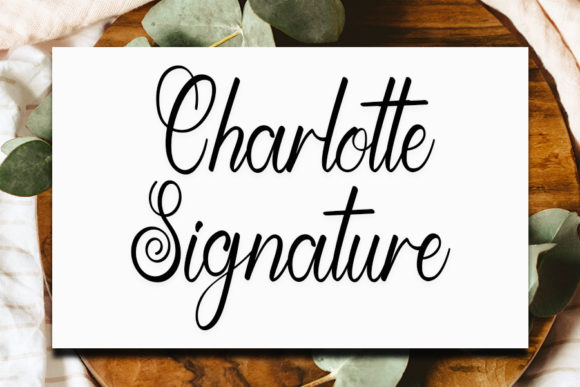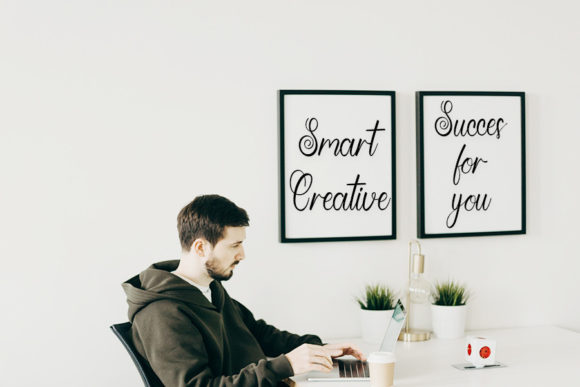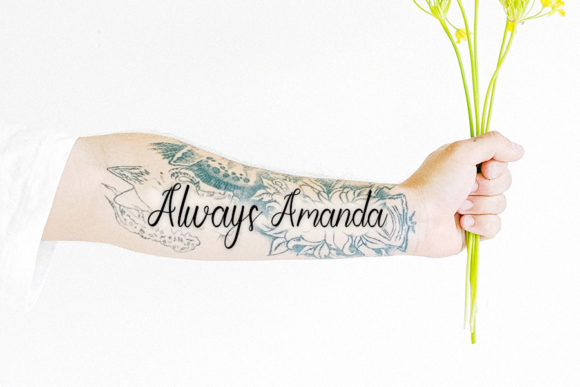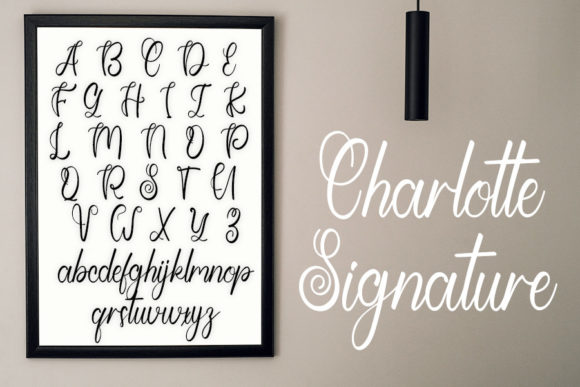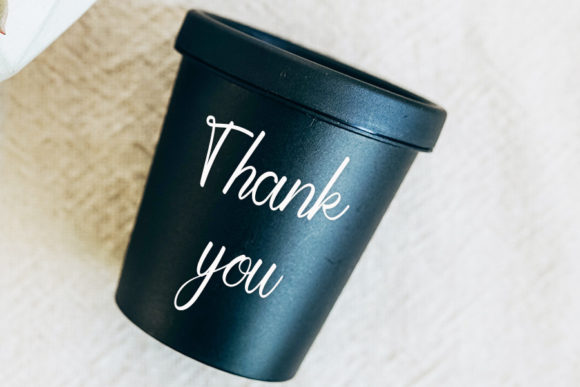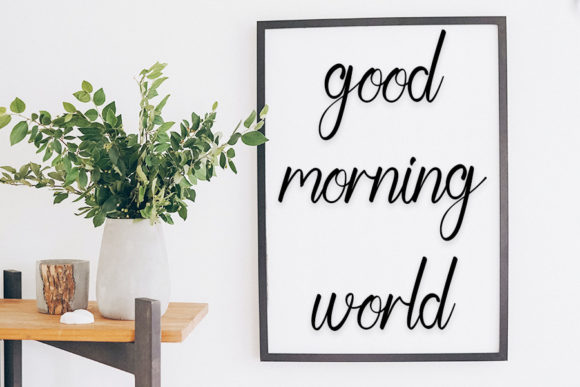
Charlotte Signature Font
About Charlotte Signature Font
Charlotte Signature is a friendly handwritten font meticulously crafted to become a true favorite. With its classy calligraphic influences, this font maintains a timeless elegance while embracing a contemporary and fresh feel.
The friendly demeanor of Charlotte Signature makes it a versatile choice for a variety of design applications. Whether used for branding, product packaging, invitations, or any project that demands a touch of personal and approachable style, this font delivers a warm and inviting aesthetic.
The careful design of Charlotte Signature ensures that it seamlessly balances classic calligraphic elements with a modern and fresh look. Each character is thoughtfully created to embody both sophistication and a sense of current design trends.
For branding projects, Charlotte Signature becomes a valuable asset, providing a signature-style logo that exudes authenticity and uniqueness. Its friendly yet classy appearance enhances the overall identity of a brand, making it memorable to the audience.
In product packaging, Charlotte Signature adds a touch of charm and warmth, making your products stand out on the shelves. The handwritten style imparts a personal touch, creating a connection with consumers.
Invitations and stationery benefit from Charlotte Signature’s versatile appeal, creating a sense of elegance and approachability. Its adaptability to various design contexts makes it suitable for a wide range of creative projects.
Choose Charlotte Signature when you want a font that not only maintains its classy calligraphic roots but also feels contemporary and fresh. Let this font be the friendly and inviting element that elevates your designs, making them truly memorable and cherished.